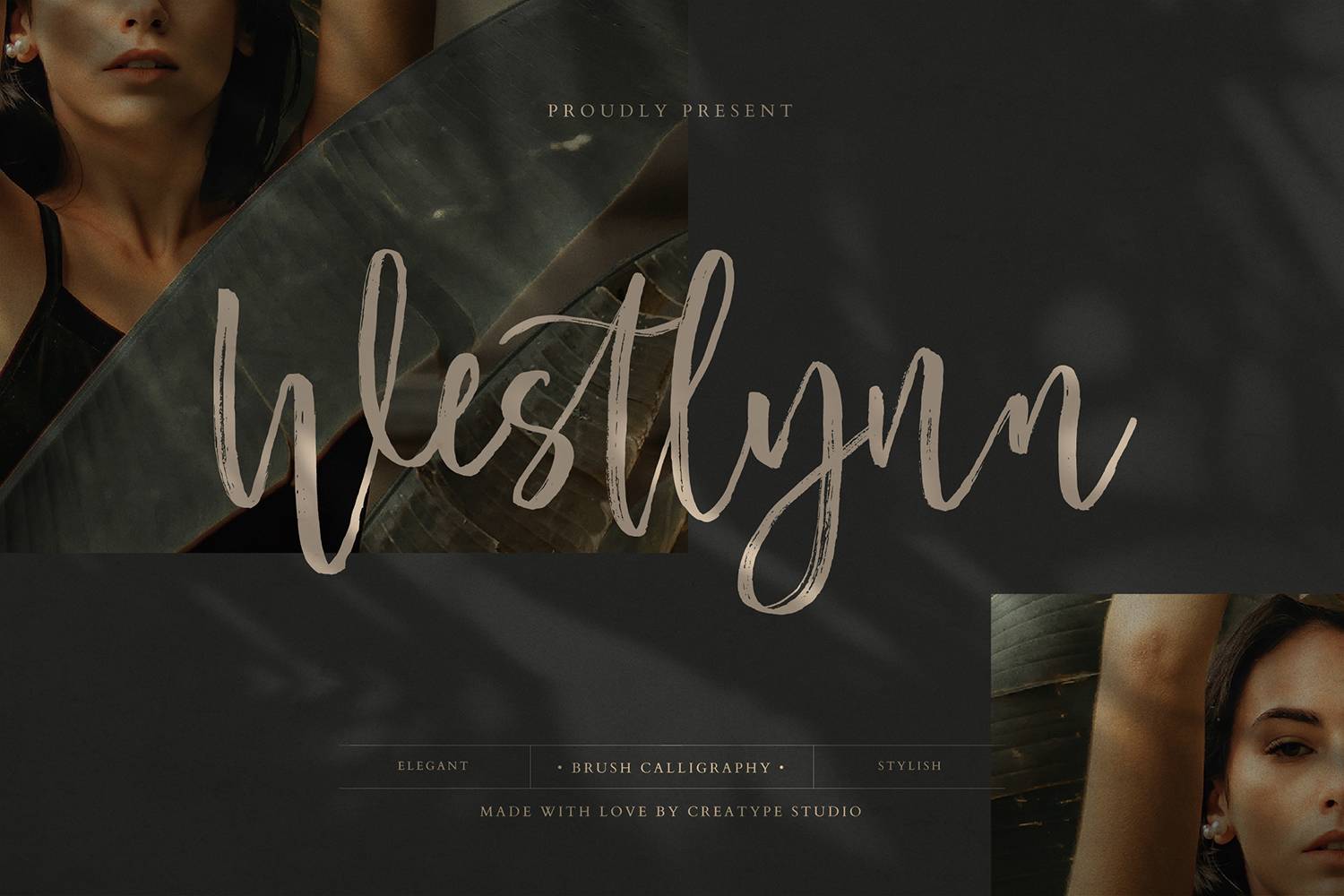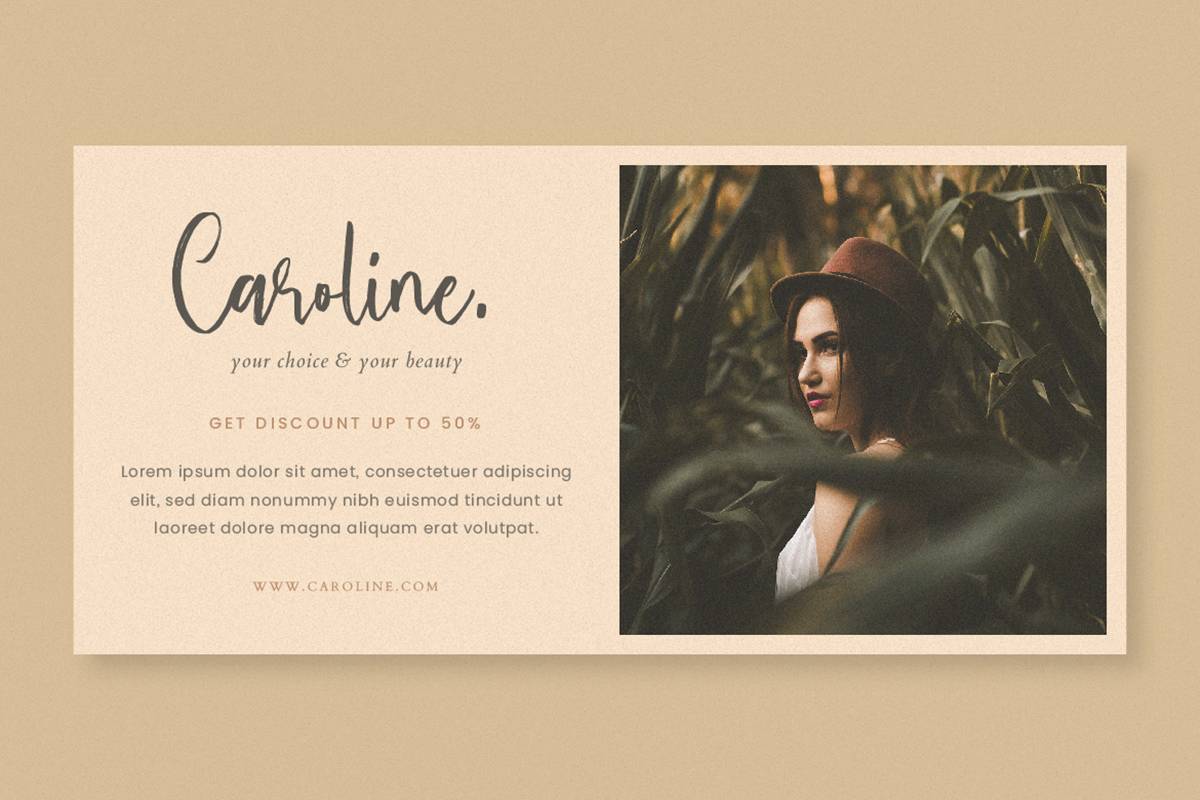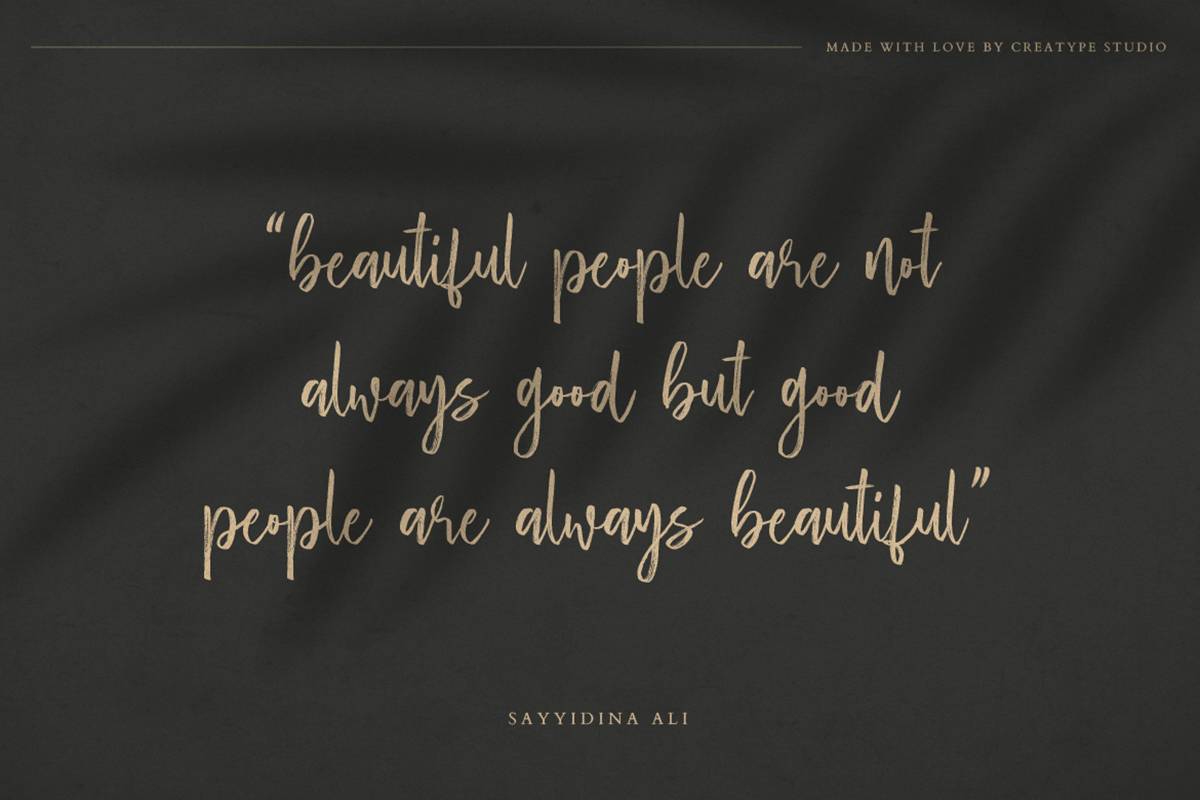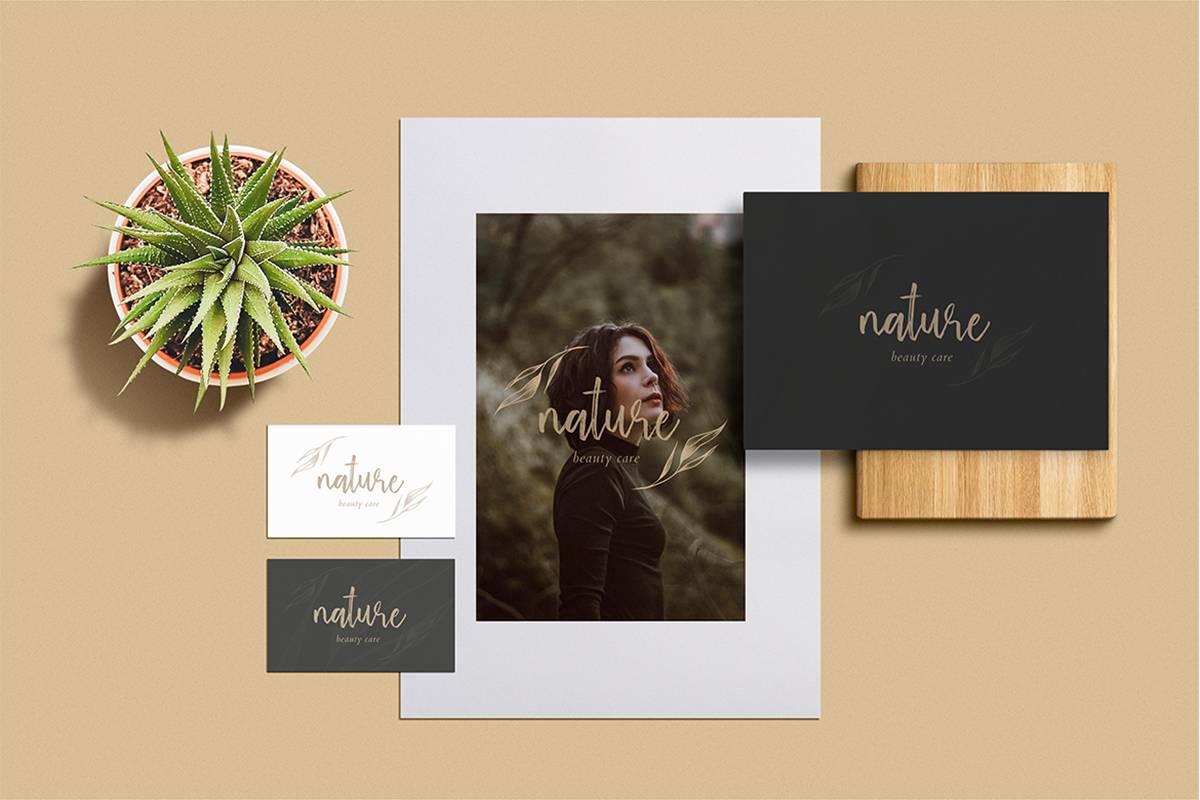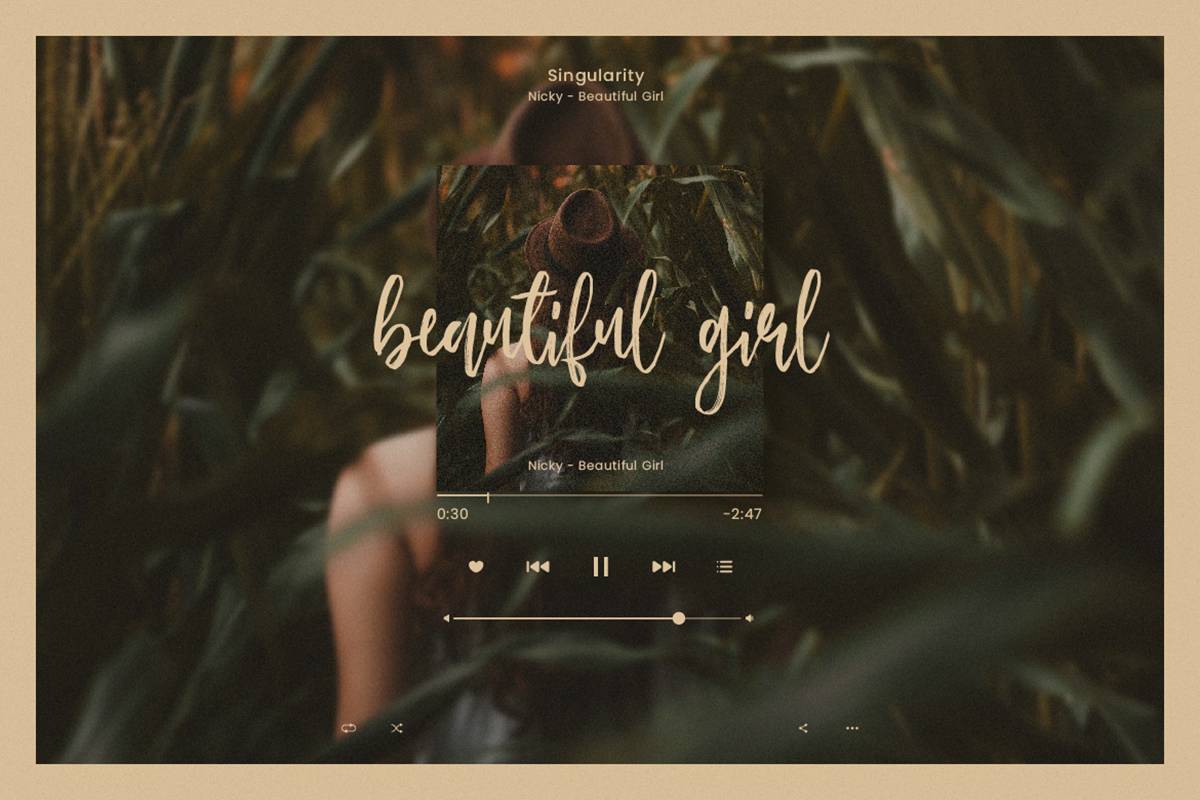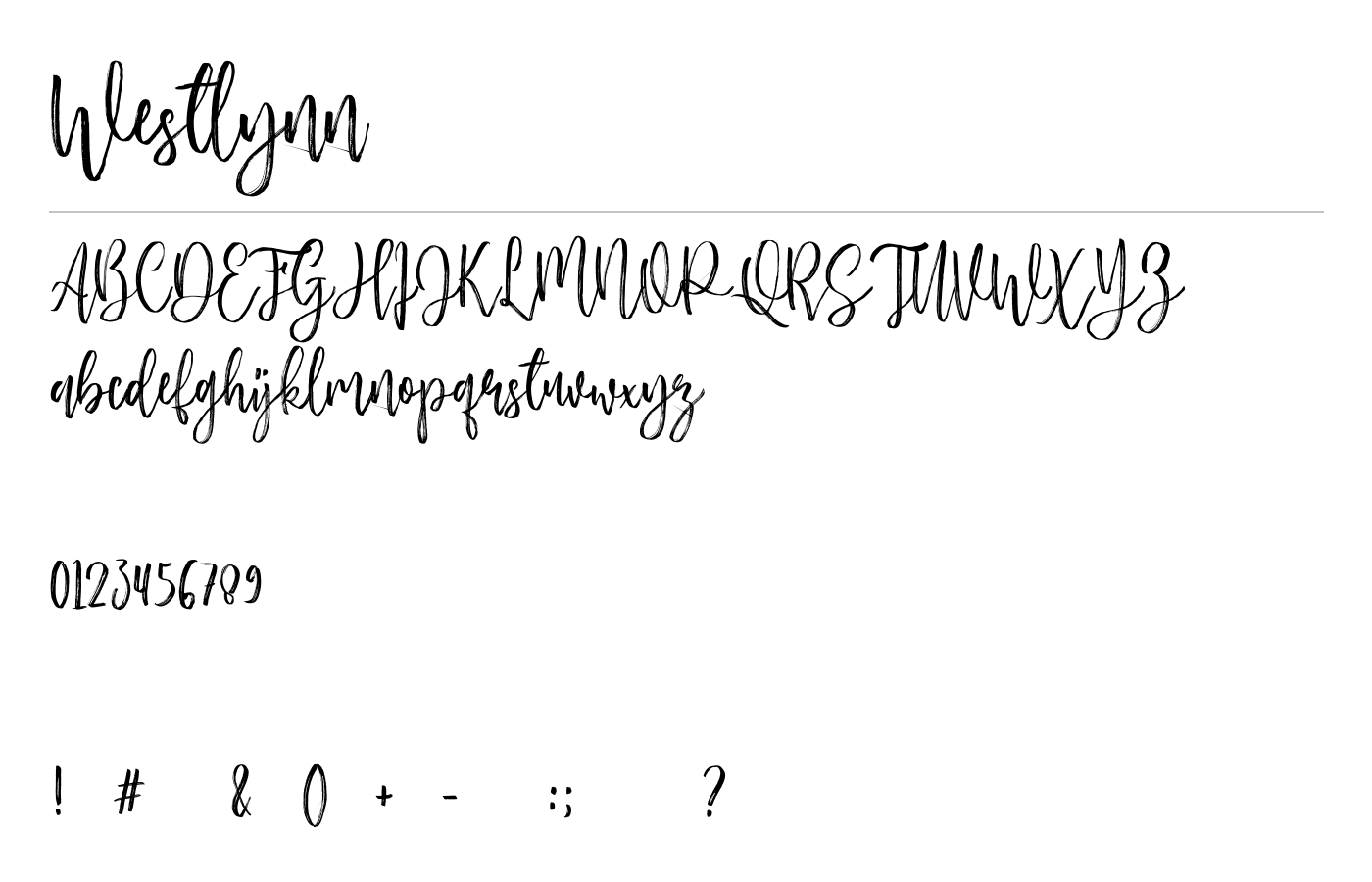
Westlynn is a lively, handwritten script font with a casual and friendly vibe, featuring smooth, flowing strokes and a natural, slightly textured brush effect. Its tall, narrow letterforms with elegant swashes and varying line thickness give it a charming, personal touch, perfect for creative branding, invitations, and stylish, informal design projects. This font works well for adding warmth and personality wherever a relaxed yet refined handwritten style is desired.
Westlynn Font
About Westlynn Font
| Font family | Westlynn Font |